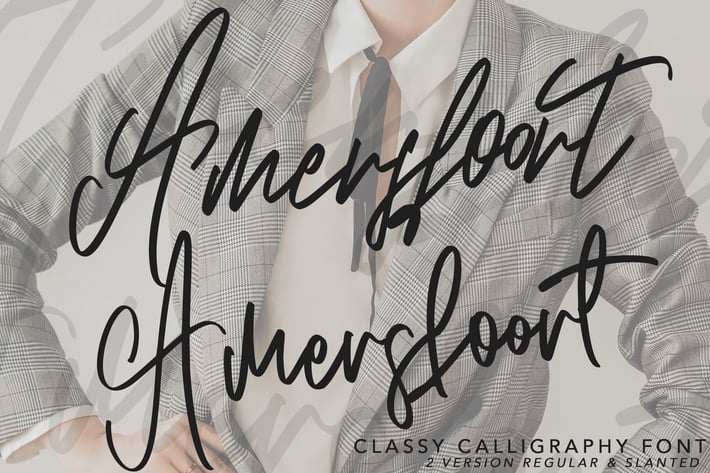
Amersfoort Calligraphy Font | 2 Version
Amersfoort Calligraphy Font with a natural & stylish flow. This collection of scripts is perfect for personal branding. this works well for many applications. Everything from personal branding & wedding invitations to advertising could benefit from this collection of signature fonts
Features : • Character Set A-Z • Numerals & Punctuations (OpenType Standard) • Accents (Multilingual characters) • Ligature
Multilingual Support :
Afrikaans, Albanian, Asu, Basque, Bemba, Bena, Catalan, Chiga, Cornish, Danish, English, Estonian, Faroese, Filipino, Finnish, French, Friulian, Galician, German, Gusii, Icelandic, Indonesian, Irish, Italian, Kabuverdianu, Kalenjin, Kinyarwanda, Low German, Luo, Luxembourgish, Luyia, Machame,
Makhuwa-Meetto, Makonde, Malagasy, Malay, Manx, Morisyen, North Ndebele, Norwegian Bokmål, Norwegian Nynorsk, Nyankole, Oromo, Portuguese, Romansh, Rombo, Rundi, Rwa, Samburu, Sango, Sangu, Scottish Gaelic, Sena, Shambala, Shona, Soga, Somali, Spanish, Swahili, Swedish, Swiss German, Taita, Teso, Vunjo, Zulu